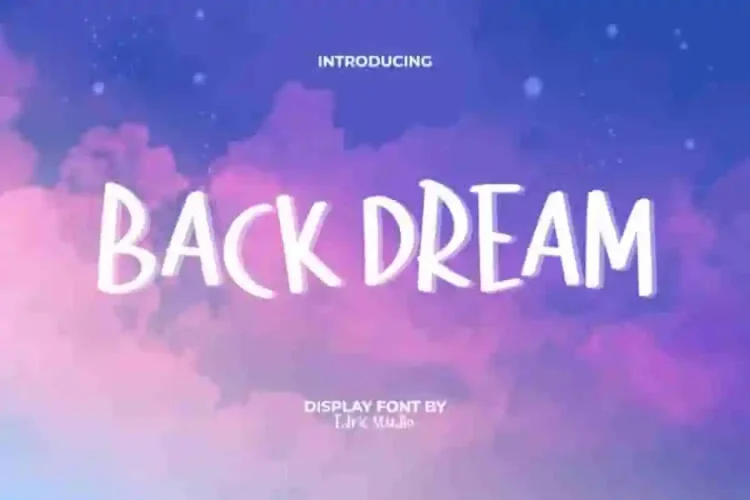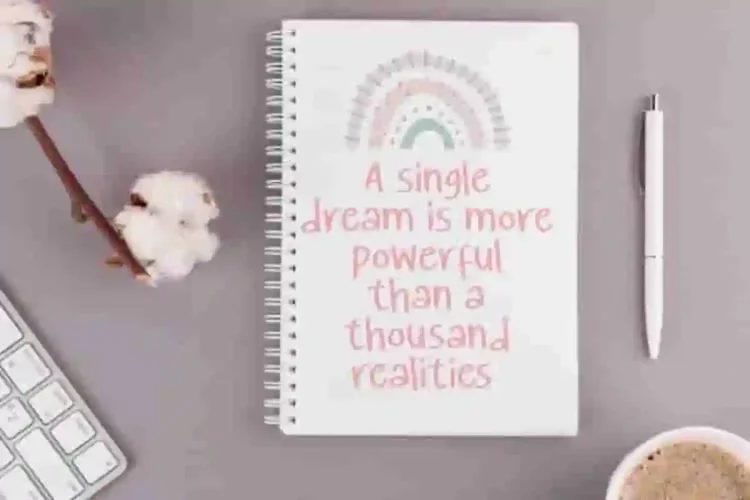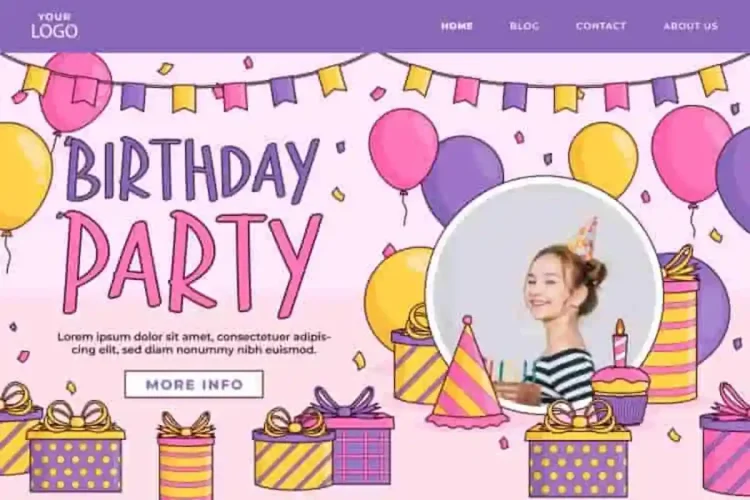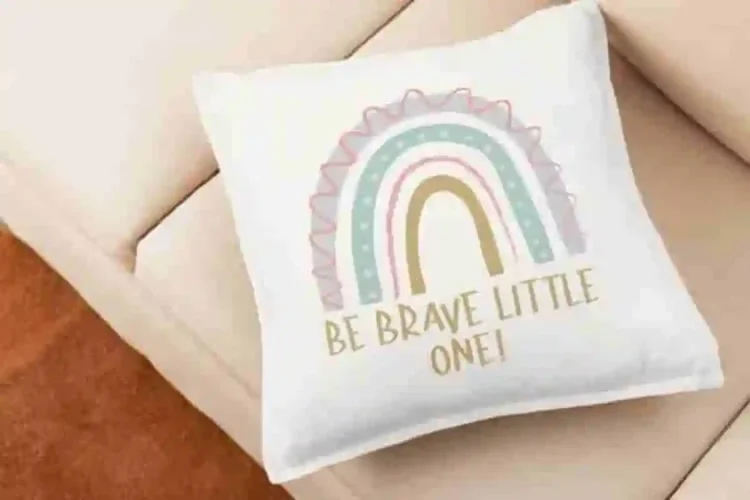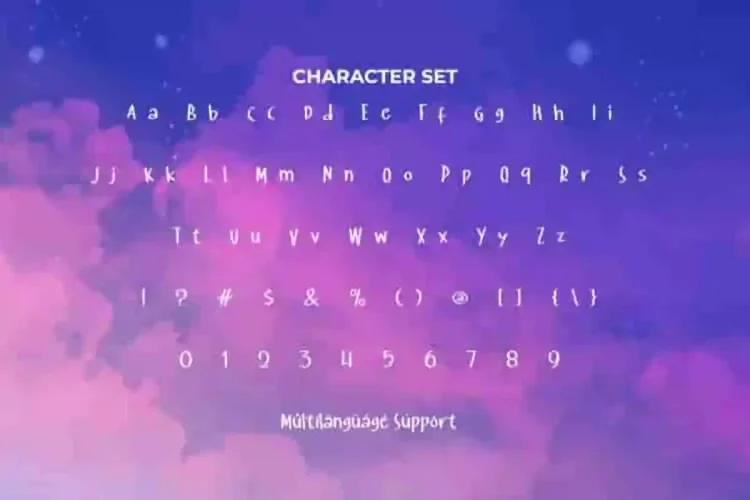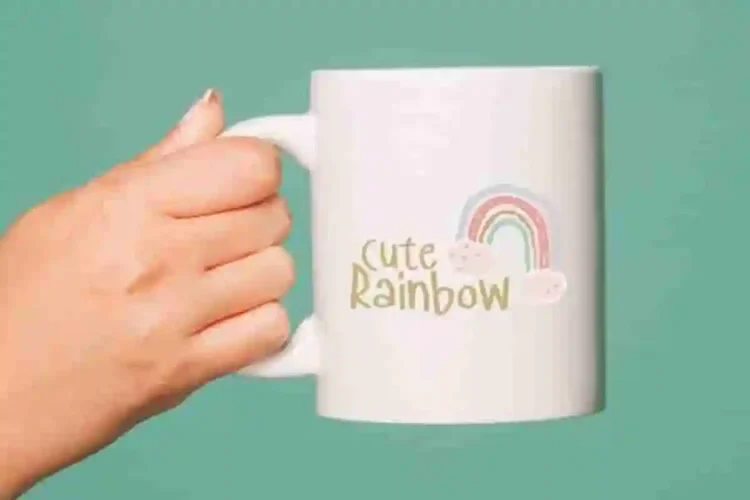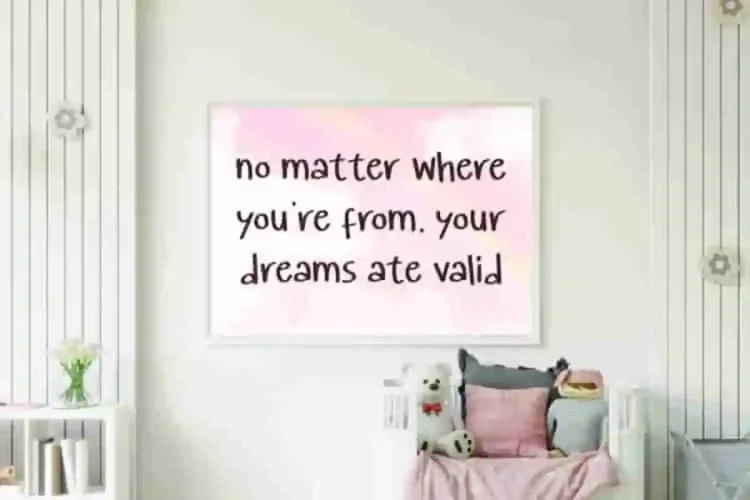
Back Dream Display Font is a beautiful fantasy display font with fun characteristics. With its unique characteristics and fun personality, this typeface is perfect for adding charm and originality to your designs.
Back Dream Font comes with a full set of Uppercase and Lowercase letters, Number, Punctuation, and Symbol. This font comes with its own style and will not look boring. Whether you are creating logos, invitations, brochures, menus, posters, packaging, labels, or websites, Back Dream Font will make your work stand out with style.